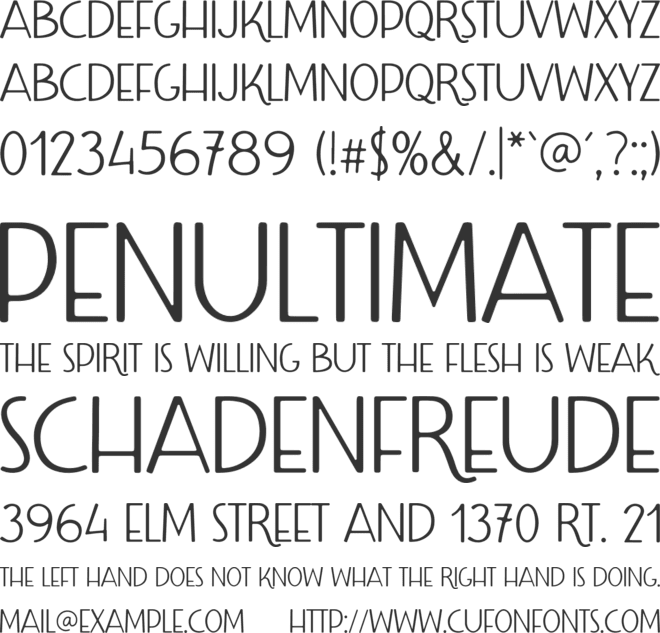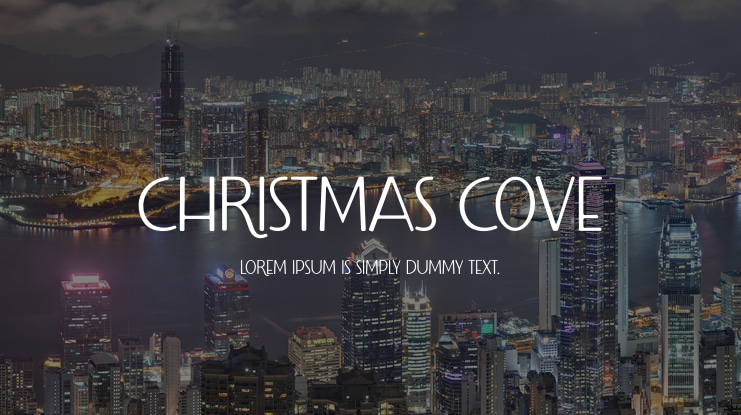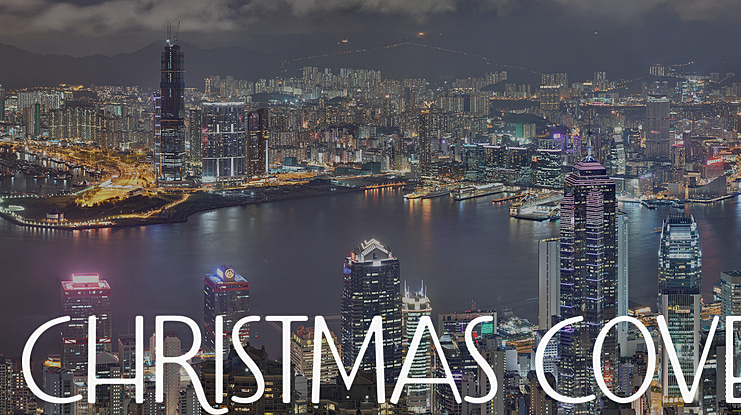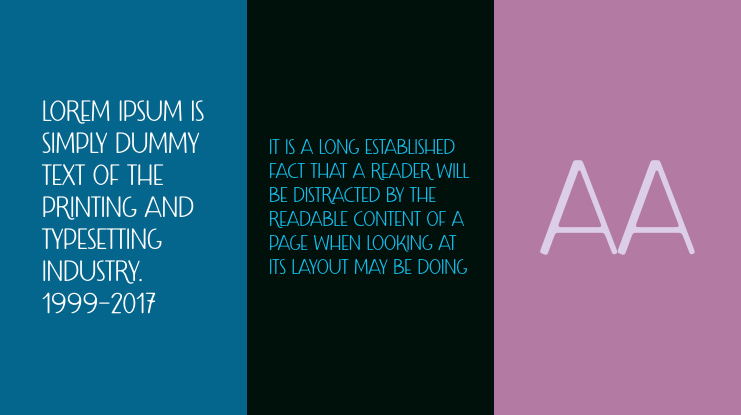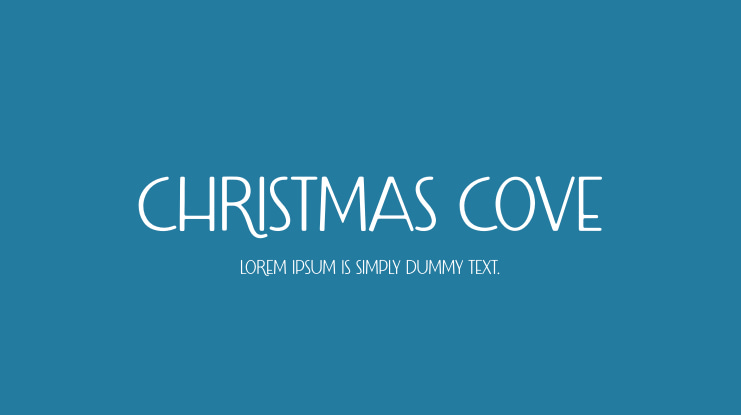
Christmas Cove Font
When the air becomes crisply chilly and we start thinking of festive projects in time for Christmas, its time to celebrate.
Christmas Cove, A classic Christmas typeface for sleigh rides and carol singing. Included are all of the necessary elements, such as numbers, punctuation, and multilingual letters. These ligatures will come in useful no matter what your imagination conjures up.